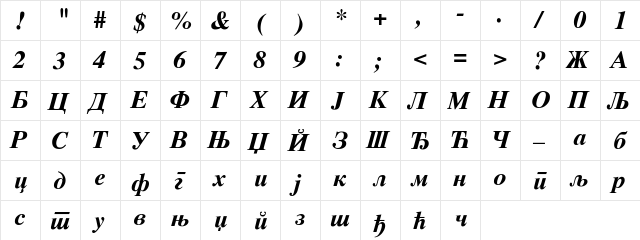
CTimes Bold-Italic Regular
Design Context for CTimes Bold-Italic Typeface
CTimes Bold-Italic takes a measured approach to typography — its balanced proportions and neutral character make it a reliable workhorse for both digital and print work. Its italic angle brings a sense of urgency and motion to the letterforms. Its bold stroke weight gives it real presence on the page.
Pro Tip: Try CTimes Bold-Italic for annotation and caption copy alongside an upright companion — the contrast in angle creates a dynamic but ordered typographic system.